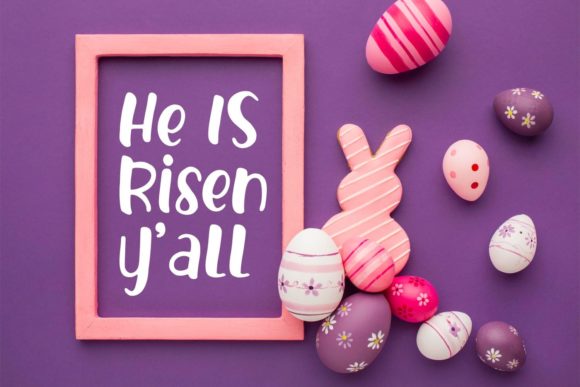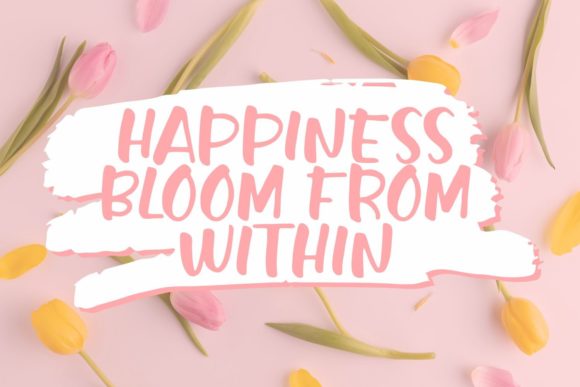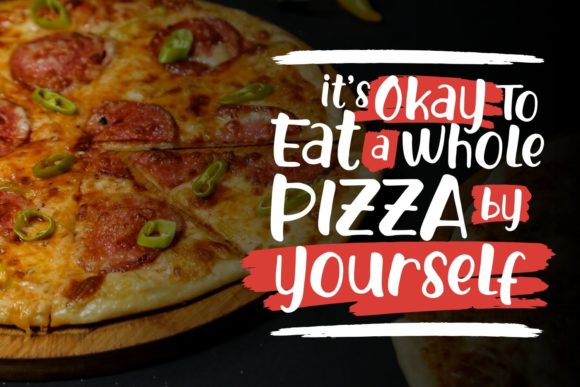
You Got This Font
About You Got This Font
You Got This is a fun, thick lettered and cool handwritten font. Whether you’re looking for fonts for Instagram or calligraphy scripts for DIY projects, this font will turn any creative idea into a true piece of art!